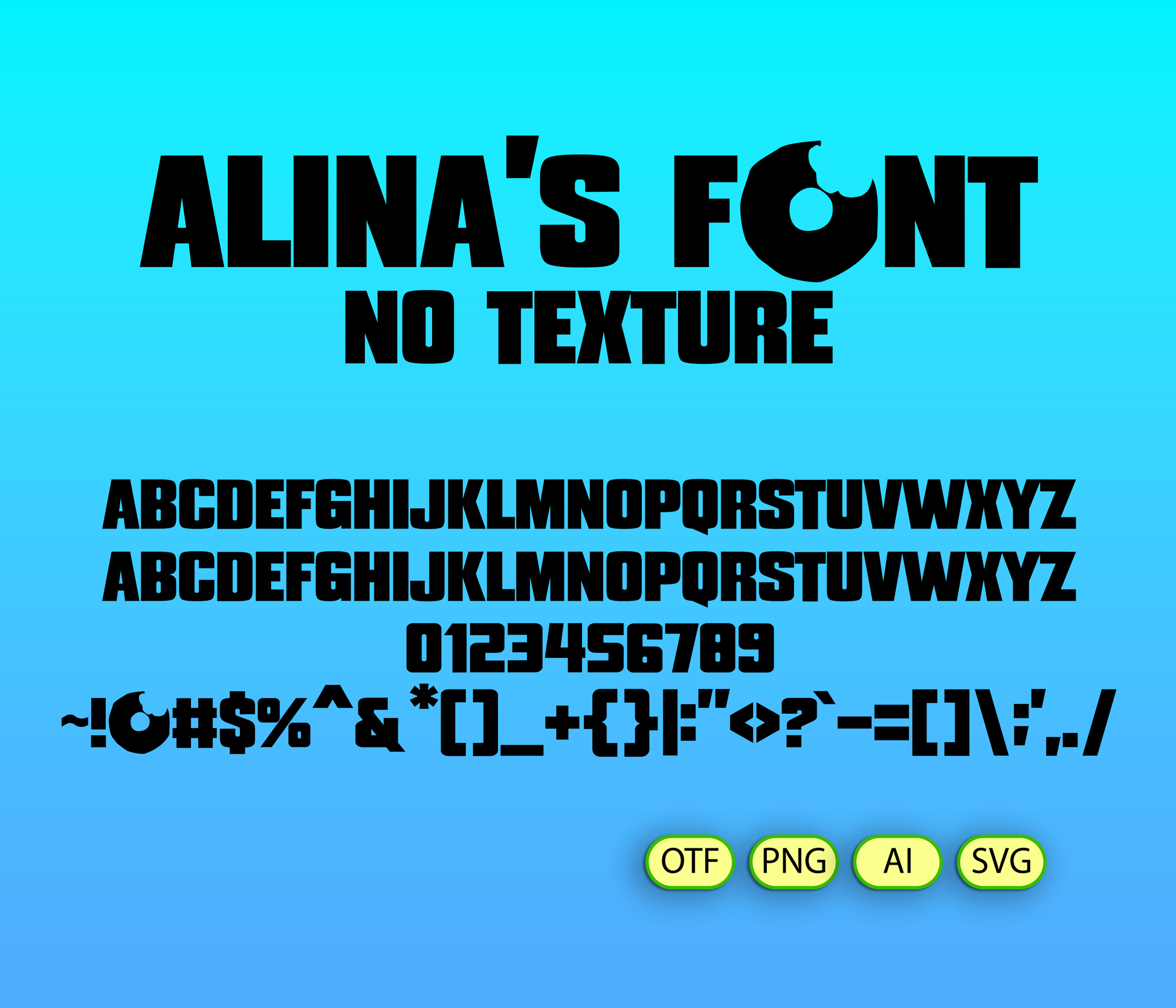
Yellow Family Animation Font
Yellow Family Animation Font Springfield Style
Step into the hilarious world of animated comedy with our Yellow Family Animation font, capturing the essence of satirical cartoons and family-friendly humor. Perfect for animation projects, comedy content creators, party planners, and creative professionals, this font brings the playful, irreverent spirit of animated family sitcoms to your projects. Create amusing invitations, comedy-themed merchandise, or digital content with the bold, humorous energy of beloved cartoon families.
Our Yellow Family Animation font features playful, rounded shapes and bold characters reflecting the warm yet satirical aesthetic of animated family comedies. Ideal for:
- Animation Events: Create eye-catching invites, posters, and banners for cartoon nights, comedy shows, and family-themed gatherings
- Comedy Design: Perfect for book covers, video promotions, and humor-themed party accessories that capture comedic timing
- Digital Media: Enhance websites, blogs, and social media with cheerful headers and graphics that express fun and family values
- Entertainment Content: Add authentic character to animation materials, cartoon designs, and promotional materials for family events
- Personal Projects: Bring comedic edge to scrapbooking, DIY crafts, and home decor inspired by the aesthetics of animated sitcoms